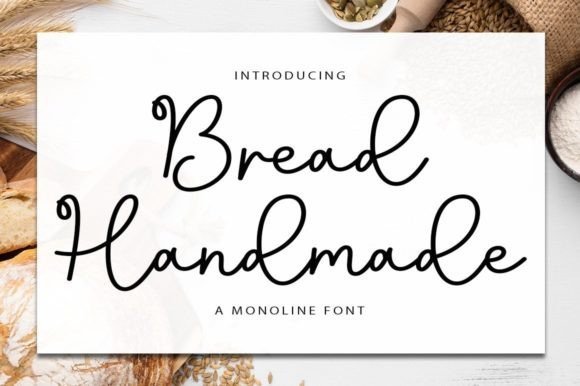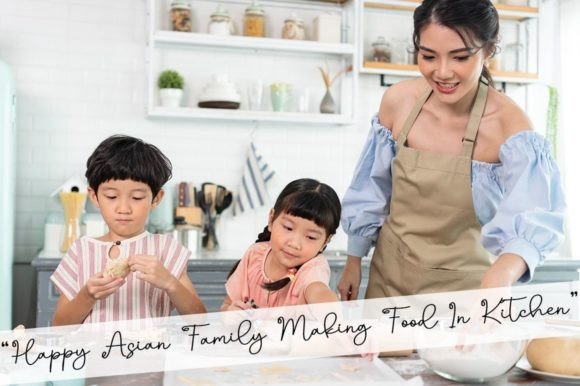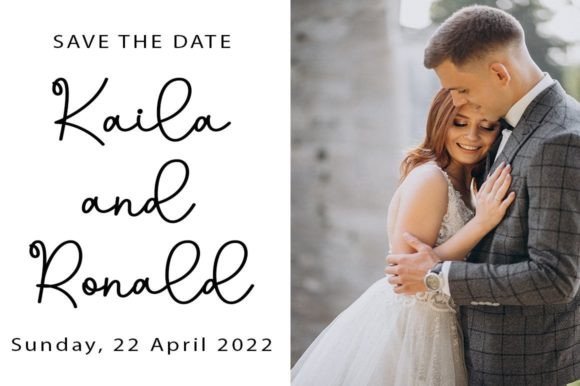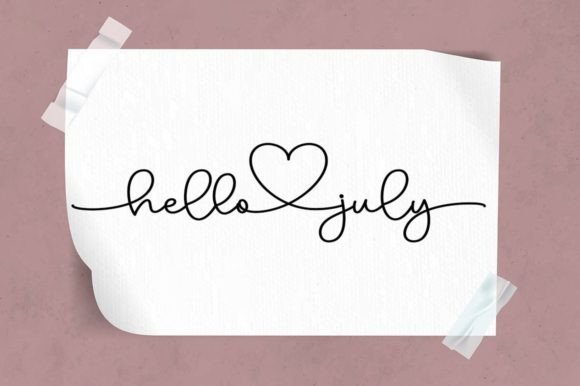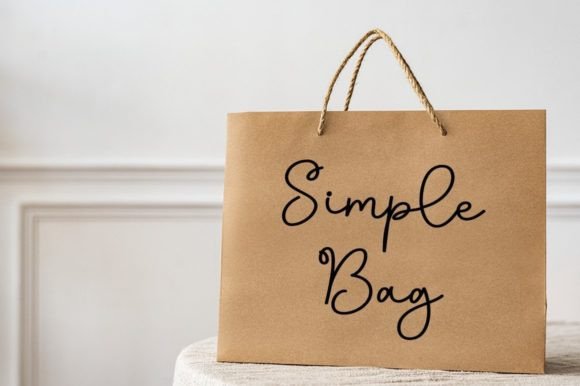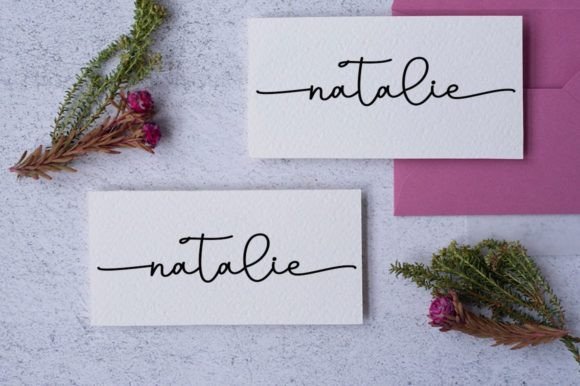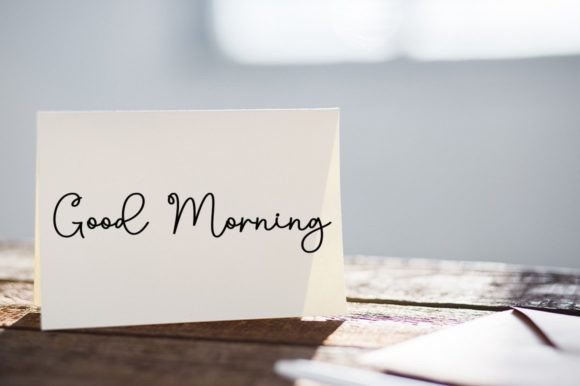
The Art of Handmade Typography: Unleashing the Beauty of Bread Handmade Font
There’s something special about holding a beautifully crafted invitation in your hands, feeling the weight of the paper, and reading the elegant, handwritten script that welcomes you to a special occasion. It’s a moment that evokes a sense of nostalgia and warmth, making you feel like you’re part of something truly special.
Designers know that the right font can make all the difference in capturing the essence of a moment. That’s why Bread Handmade Font is a treasure trove for creatives. This charming and elegant font is perfect for adding a handwritten touch to wedding invitations, thank you cards, quotes, and more. With its PUA encoding, designers can easily access all the glyphs and swashes, making it a valuable addition to any design arsenal.
Bread Handmade Font Key Features
- Size: 20 styles, ranging from Thin to Extra Bold
- Resolution: Supports high-resolution displays (up to 300 DPI)
- Unique Characteristics: Handmade texture and subtle imperfections, giving it a natural, artisanal feel
- Language Support: Multilingual support for over 200 languages
- Font Pairing: Designed to pair well with other handmade and script fonts for a unique, custom look
Bread Handmade Font Review
Bread Handmade Font is a beautiful, handwritten font that’s perfect for adding a touch of warmth and personality to your designs. Here are some things that work well:
- ✨ Unique and elegant script style that’s perfect for titles, headings, and quotes.
- ✨ High-quality, crisp lines that make the font look great at any size.
- ✨ A wide range of languages supported, making it a great choice for global projects.
- ⚠️ Limited character set and support for certain languages.
- ⚠️ Can be a bit difficult to read at very small sizes due to the complex script style.
- ⚠️ May not be the best choice for body text or long blocks of text due to its decorative nature.
Overall, I think Bread Handmade Font is a great choice for designers who want to add a touch of elegance and sophistication to their projects. While it has some limitations, its unique style and high-quality design make it a valuable addition to any font collection.
Use the Bread Handmade Font for creating invitations, menus, and other materials that require a personal touch.
Combine the font with images and other design elements to create a unique and eye-catching design.
Restaurant menus and signage
Personalized gifts and greeting cards